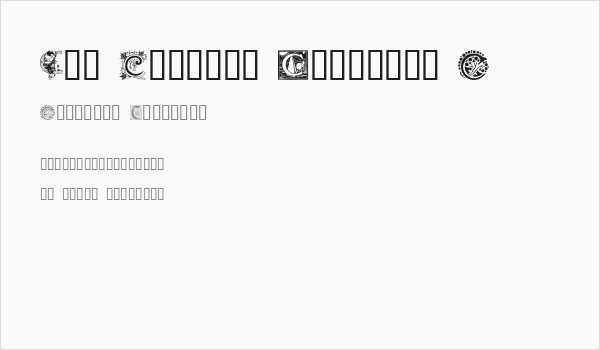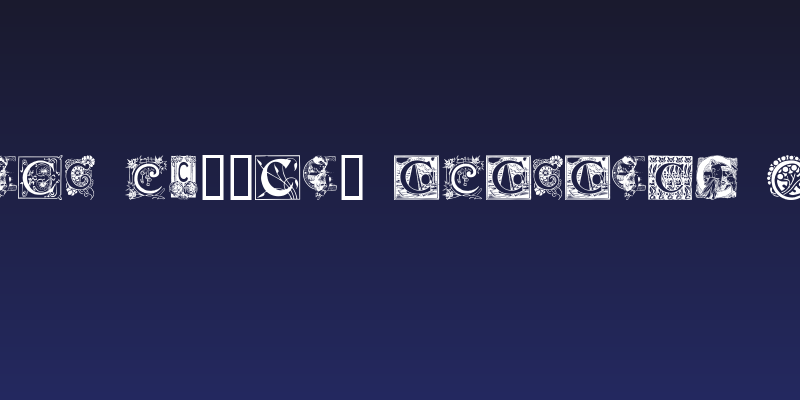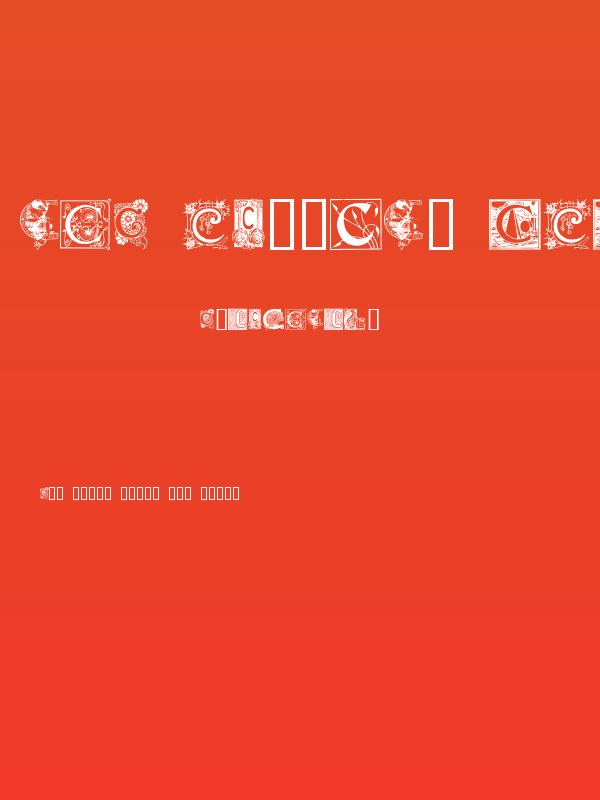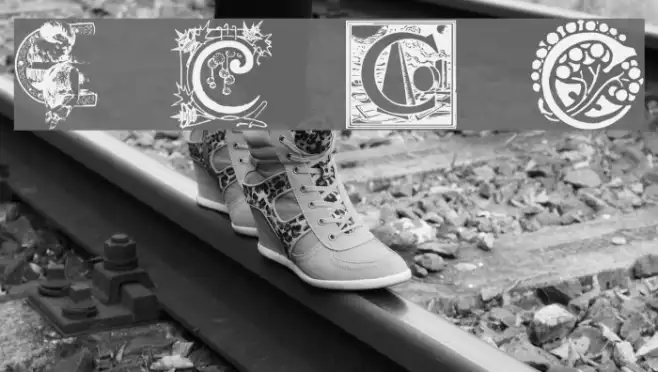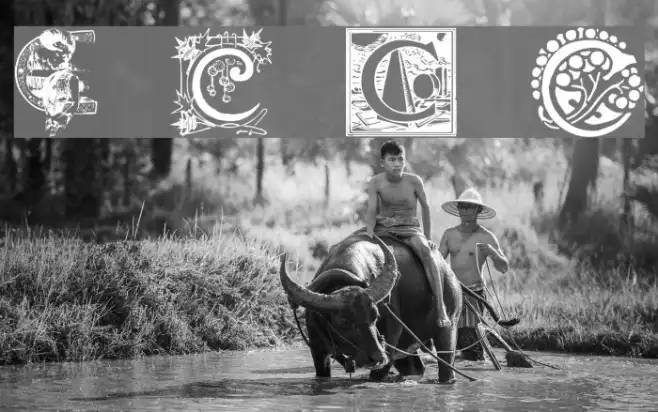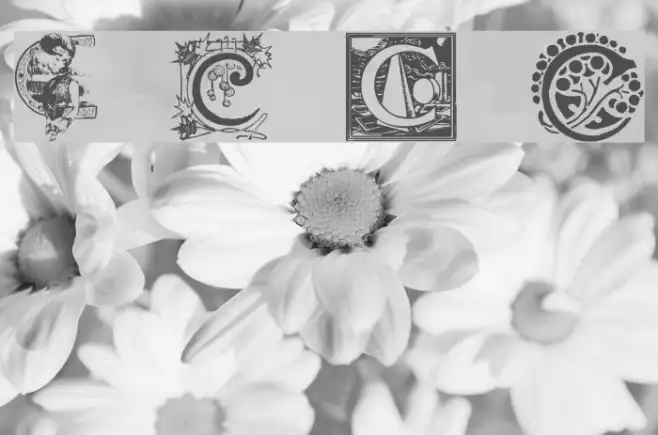
Art Nouveau Initials C Font
Art Nouveau Initials C Description
This font is a decorative style that embodies the elegance and intricate detailing characteristic of the Art Nouveau movement. Each letter is framed within a square, adorned with elaborate floral and organic motifs that intertwine with the letterforms. The design is highly ornamental, with a focus on curves and flowing lines, creating a sense of movement and fluidity. The letters are bold and prominent, ensuring they stand out against the detailed backgrounds. This style is reminiscent of early 20th-century design, capturing the essence of nature and artistry in typography.
| Use Case | Logos, Headlines, Decorative purposes |
| Proposed Projects | Ideal for vintage-themed projects, wedding invitations, book covers, and decorative signage. |